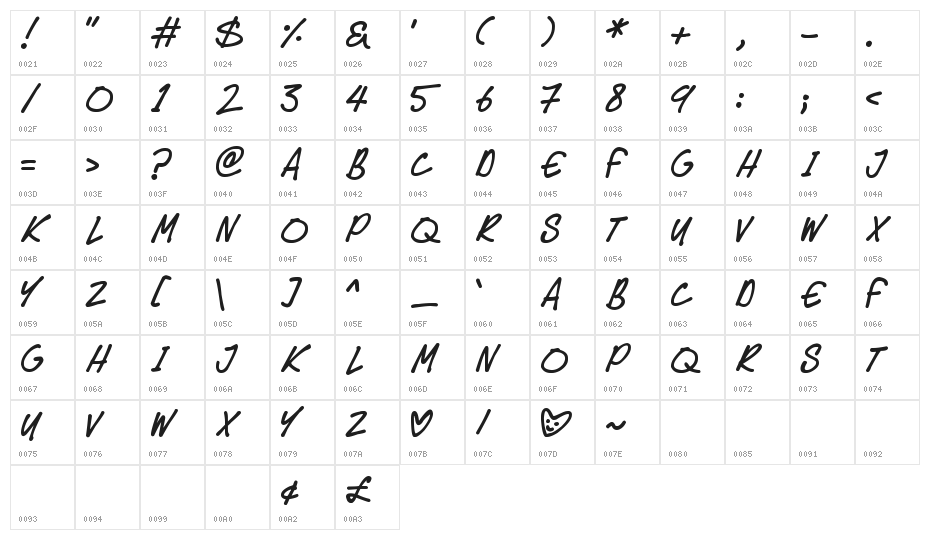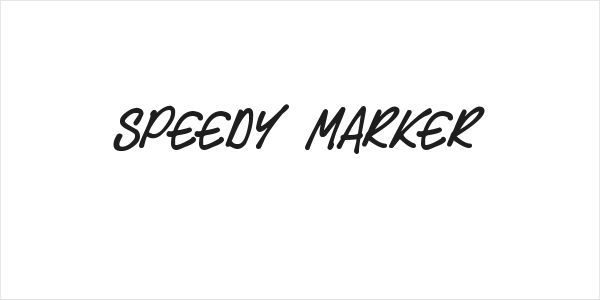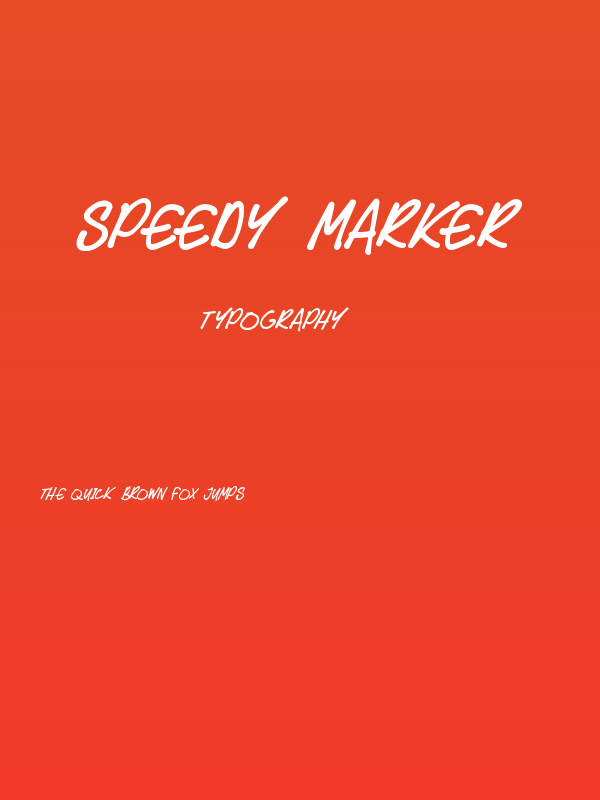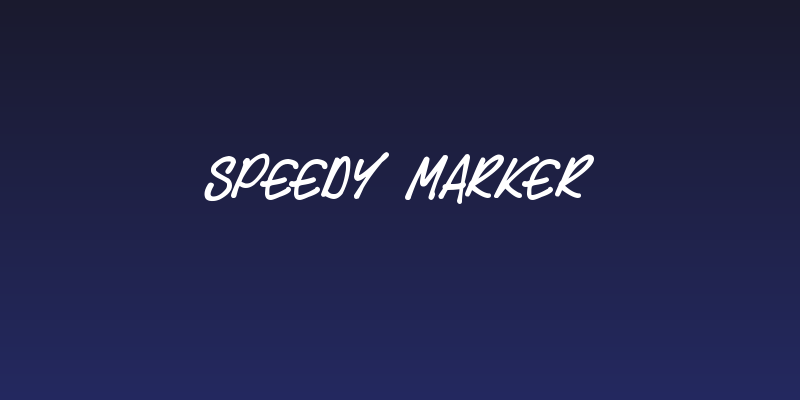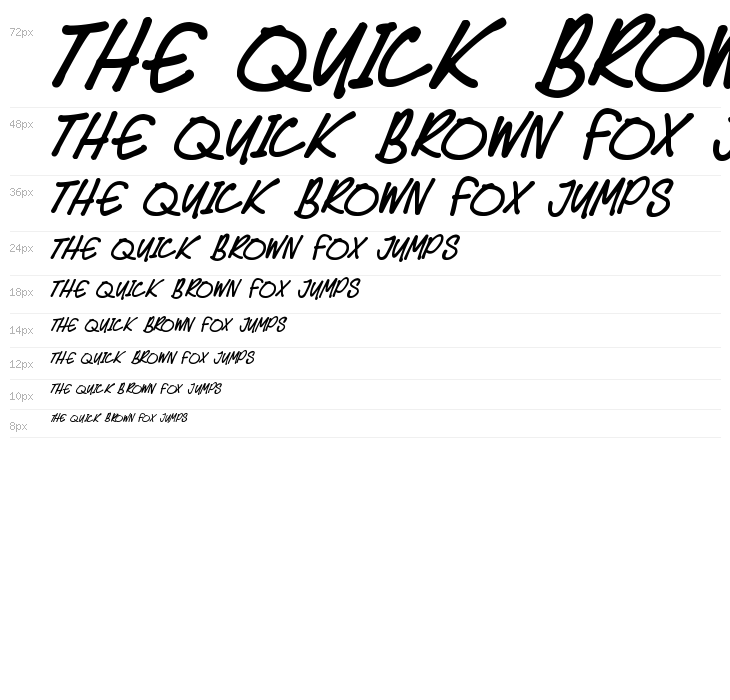
Speedy Marker Font
Speedy Marker Description
This font exudes a dynamic and energetic style, reminiscent of quick, handwritten strokes with a marker. The letters are bold and slightly slanted, giving a sense of movement and urgency. Each character is crafted with a consistent thickness, maintaining a uniform appearance throughout. The uppercase and lowercase letters are well-balanced, with a playful yet legible design. Numbers and special characters are included, matching the lively aesthetic of the alphabet. This font is ideal for projects that require a personal touch or a sense of spontaneity.
| Use Case | Headlines, Logos, Informal Invitations |
| Proposed Projects | Ideal for posters, event flyers, personal branding, and creative projects that need a lively and informal touch. |